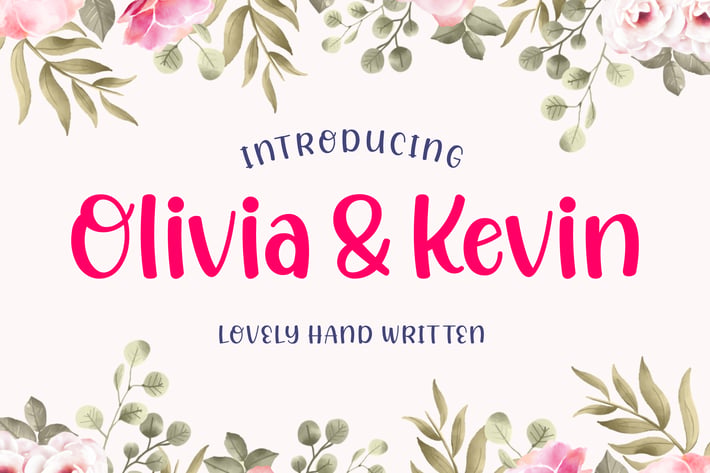
Lovely Handwritten Font
Olivia and Kevin is a fun and quirky handwritten font, that will inspire you to create something fun and memorable, especially for your best valentine. Perfect for your crafting projects, posters, magazines, food recipes, party invitations, and all other things that need this fun display type!
Alternates.
Numerals & Punctuation.